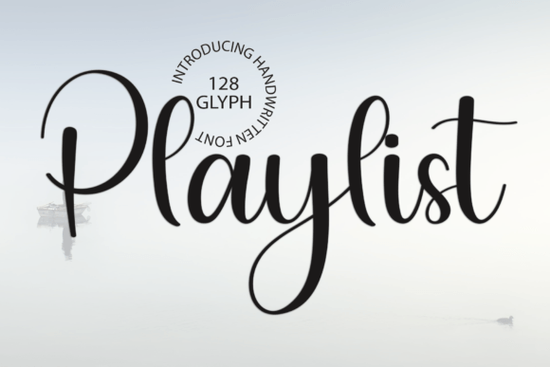
Playlist Font is a unique typeface that brings a sense of joy and celebration to any design. Whether you're working on holiday cards, gift tags, or festive banners, this font adds a playful and nostalgic touch. Its decorative elements make it stand out, while its readability ensures it works well in both digital and print formats.
If you're looking for a font that feels like a party on the page, Playlist Font could be just what you need. It’s especially popular among designers who want to add a personal, handcrafted feel to their work. The font’s cheerful style makes it ideal for seasonal projects, but it can also be used creatively in other contexts, like branding or social media graphics.
What Makes Playlist Font Stand Out?
One of the key features of Playlist Font is its ability to convey emotion through typography. The letterforms are designed with a friendly, approachable vibe, making it perfect for messages that aim to inspire happiness. Its unique details like subtle flourishes and decorative accents add visual interest without overwhelming the text.
Designers often use this font for projects that require a personal touch, such as wedding invitations, birthday announcements, or holiday greetings. It pairs well with other fonts, allowing for creative combinations that highlight different parts of a design. For example, using it alongside a more traditional serif font can create a balanced and visually appealing layout.
How to Use Playlist Font in Your Projects
Playlist Font works best in situations where you want to add a fun and festive tone. Consider using it for:
- Greeting cards for holidays or special occasions
- Gift labels and packaging tags
- Event invitations or promotional materials
- Social media posts with a celebratory message
When using this font, keep in mind that it’s best suited for short phrases or headlines rather than long blocks of text. This helps maintain clarity and ensures the decorative elements don’t become distracting.
Whether you're a designer, crafter, or small business owner, Playlist Font offers a fun and expressive way to enhance your creative projects. Its festive style and easy-to-use design make it a valuable addition to any font collection.